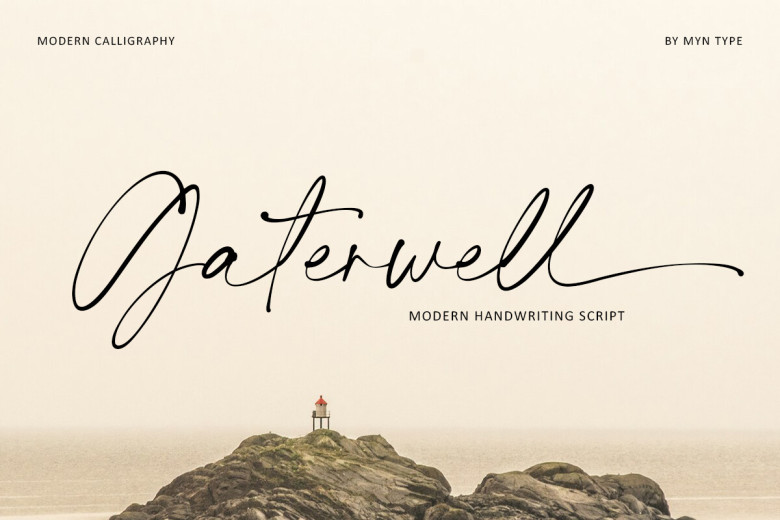
Gaterwell Font
The name of Gaterwell it self is humble yet sophisticated; this can also be applied to the handwritten font that is used in the logo. It is a unique font with very healthy proportions of the letters. Get captivated with its amazingly versatile design and start making amazing looks with it!
Gaterwell Handwritten Font